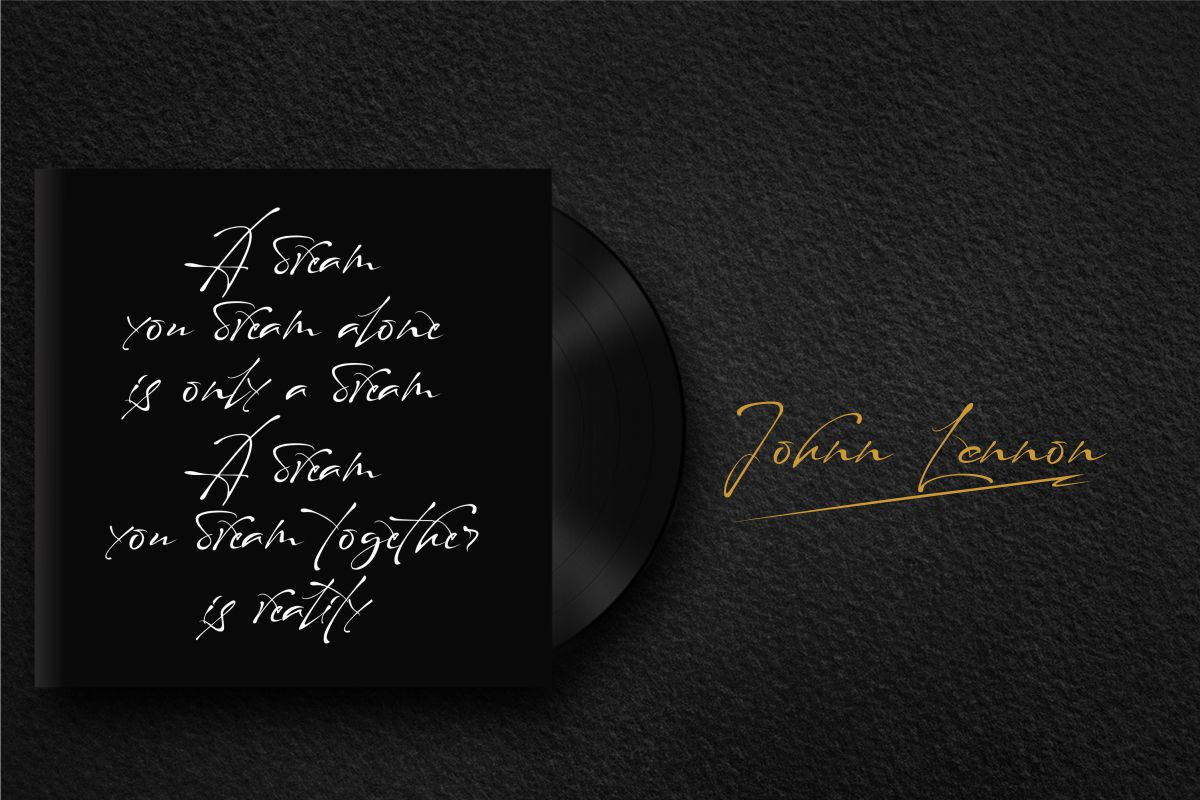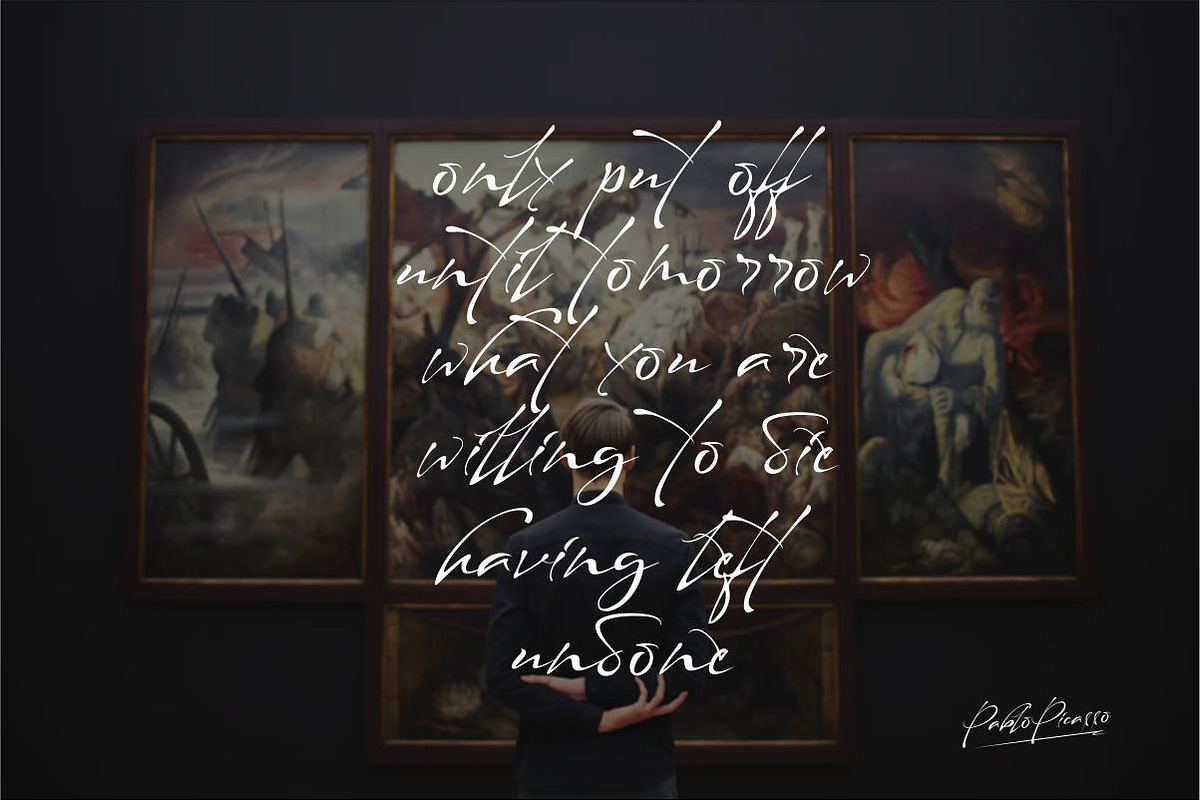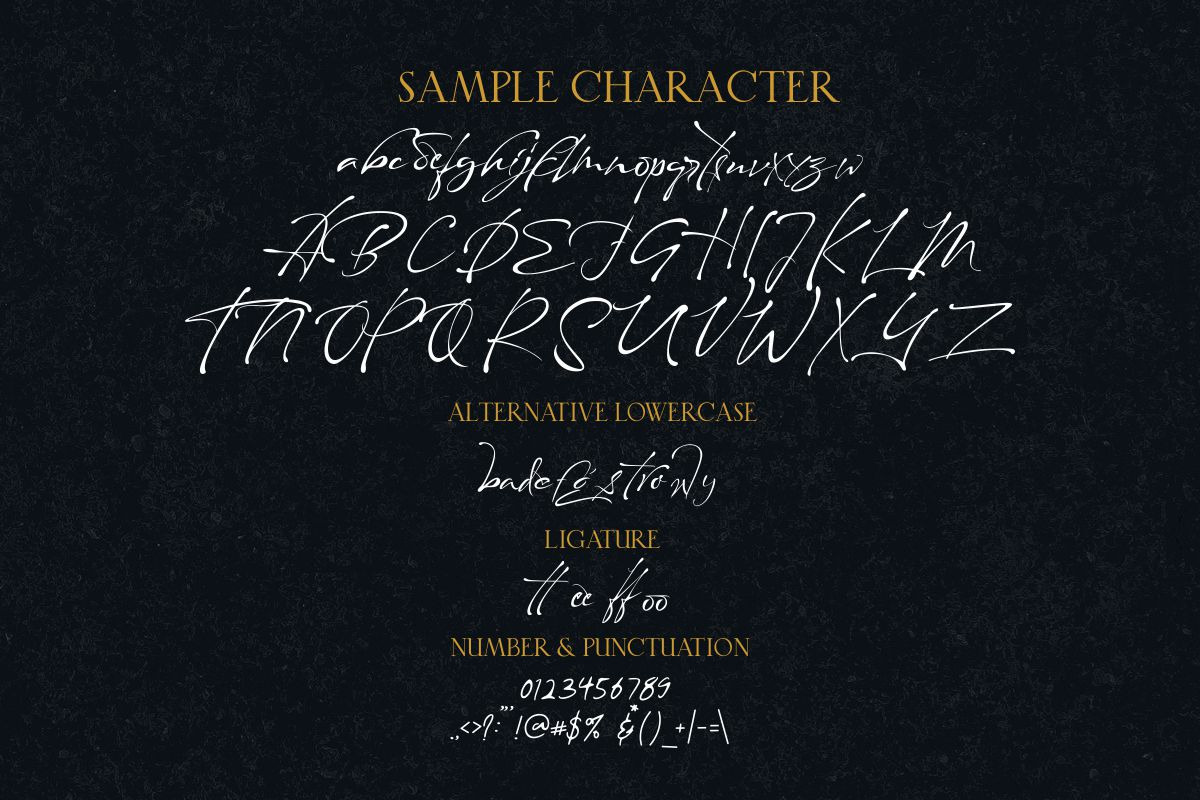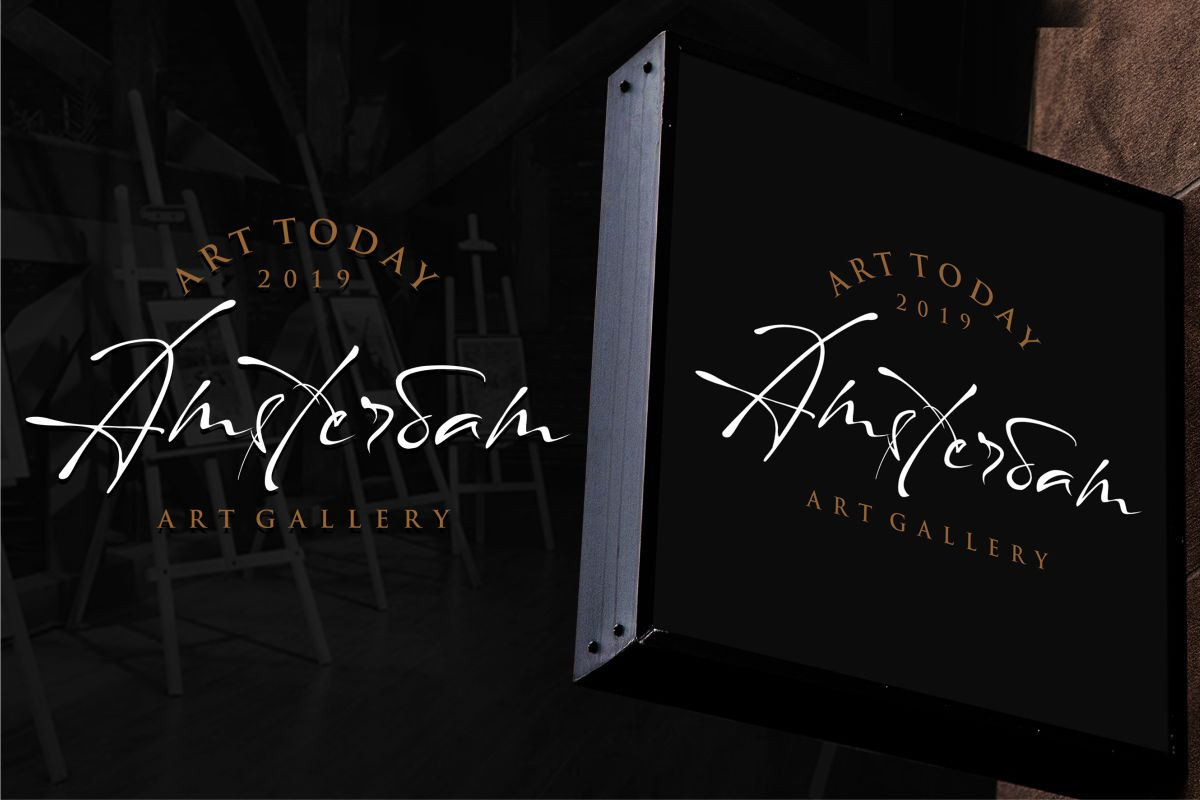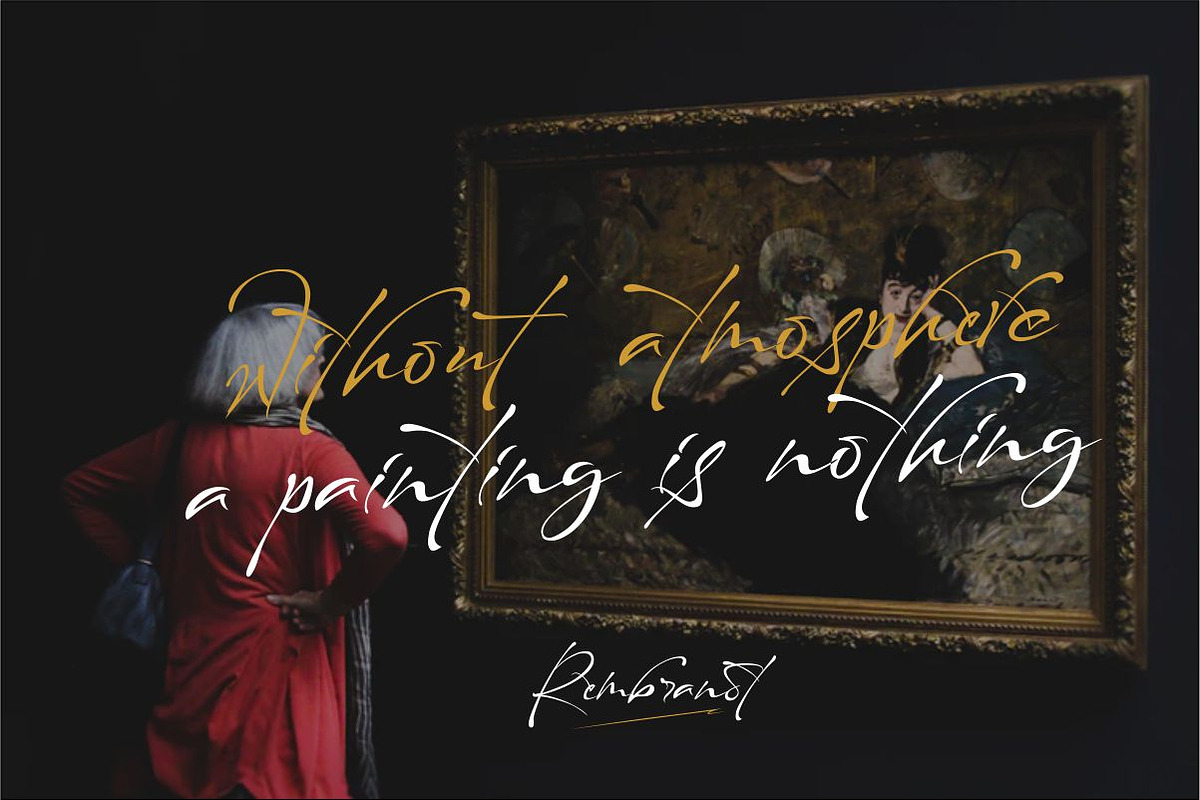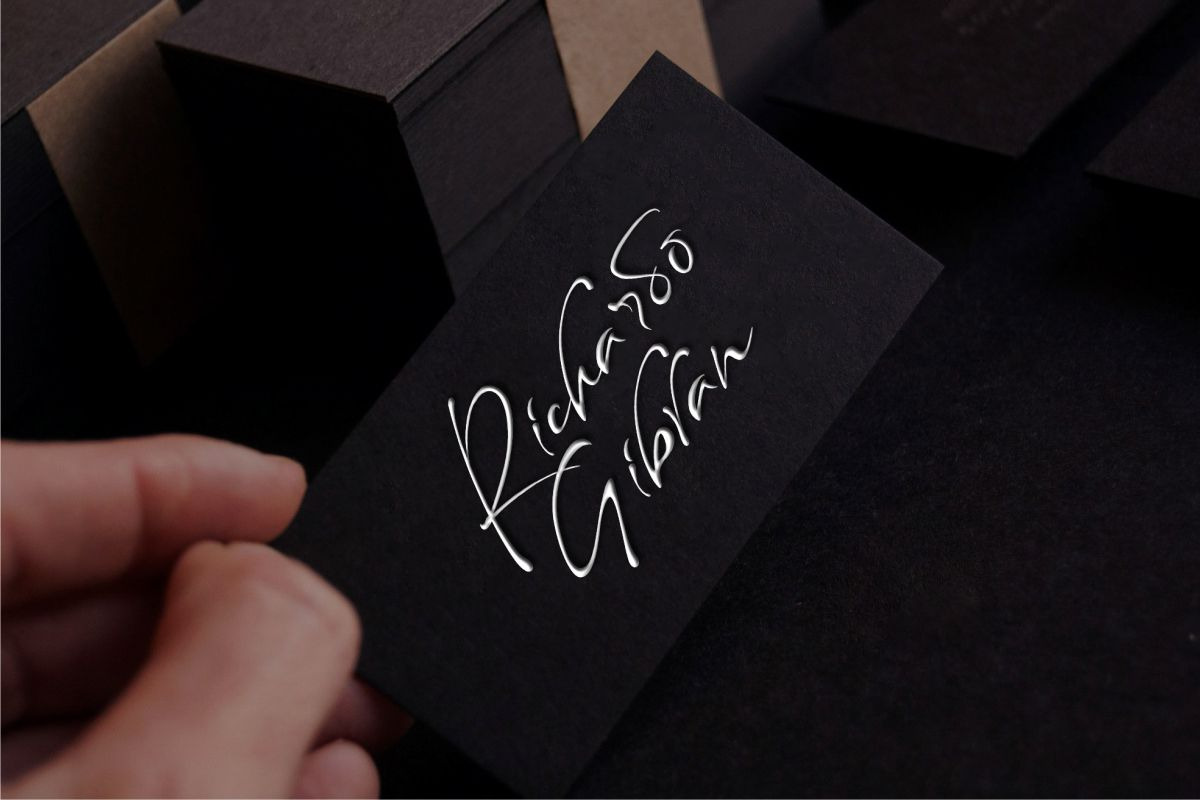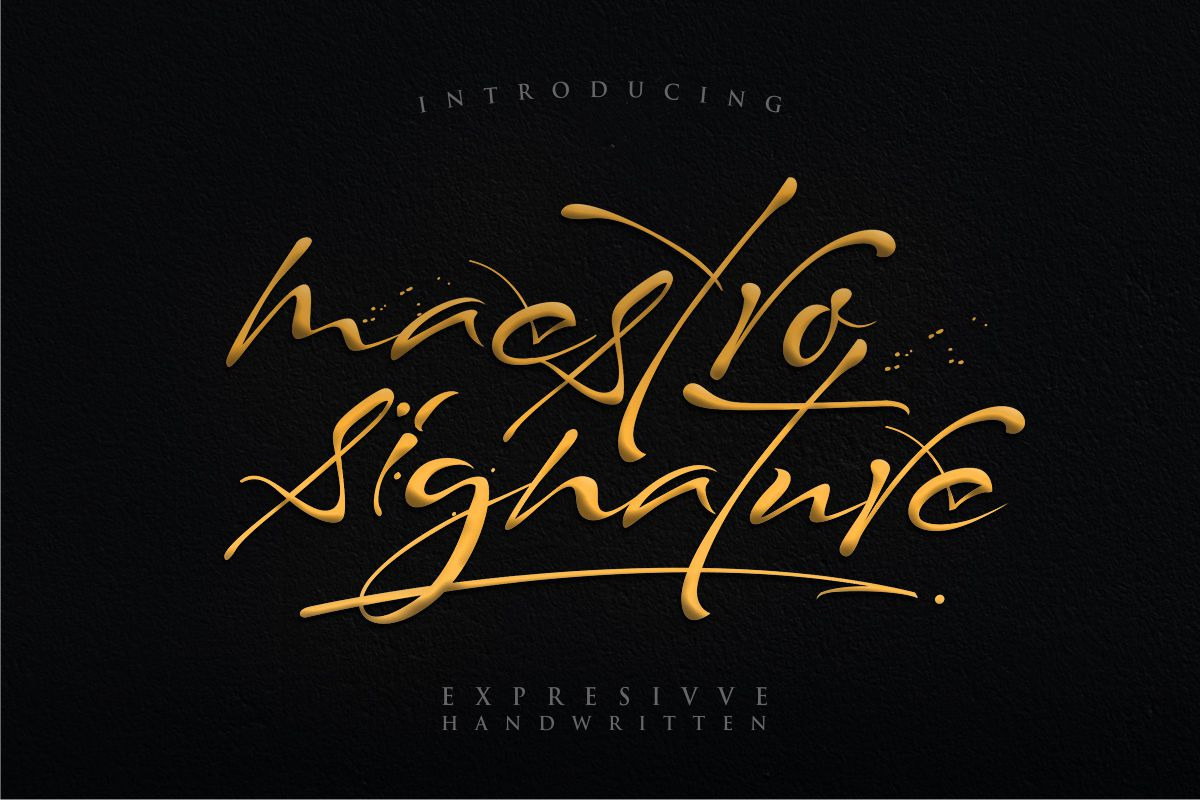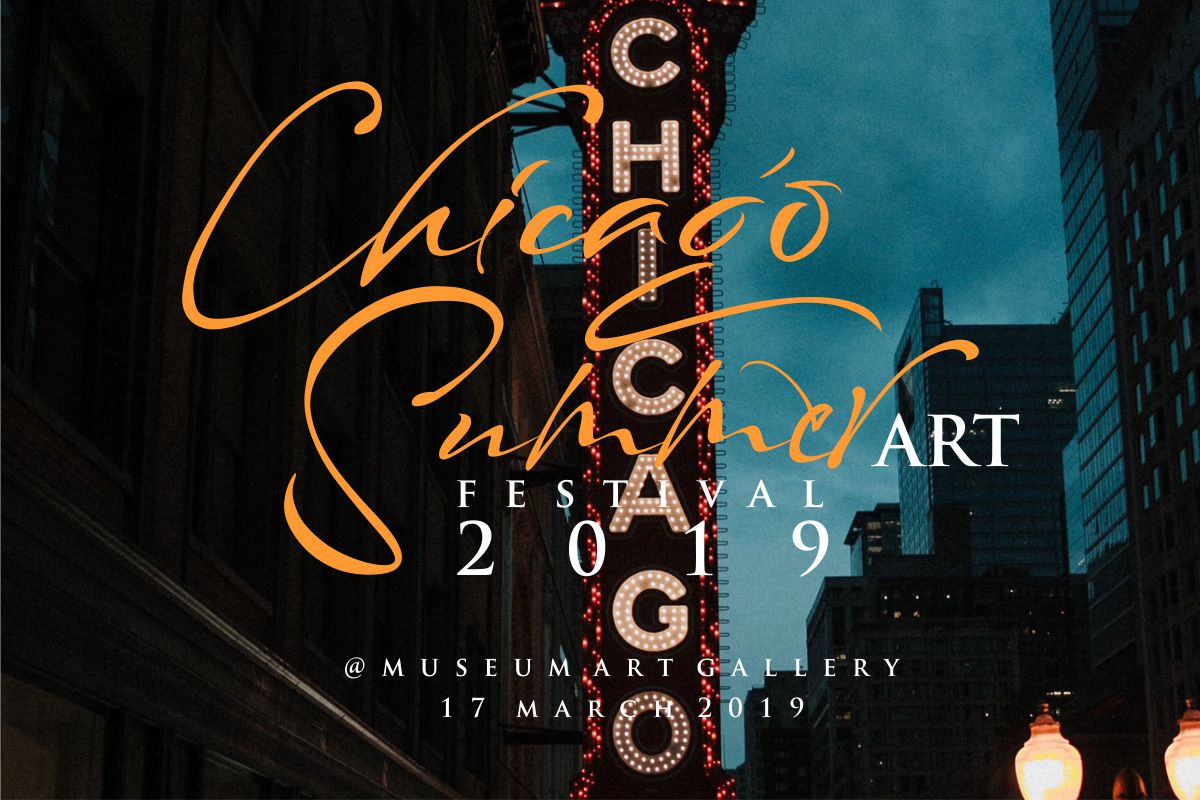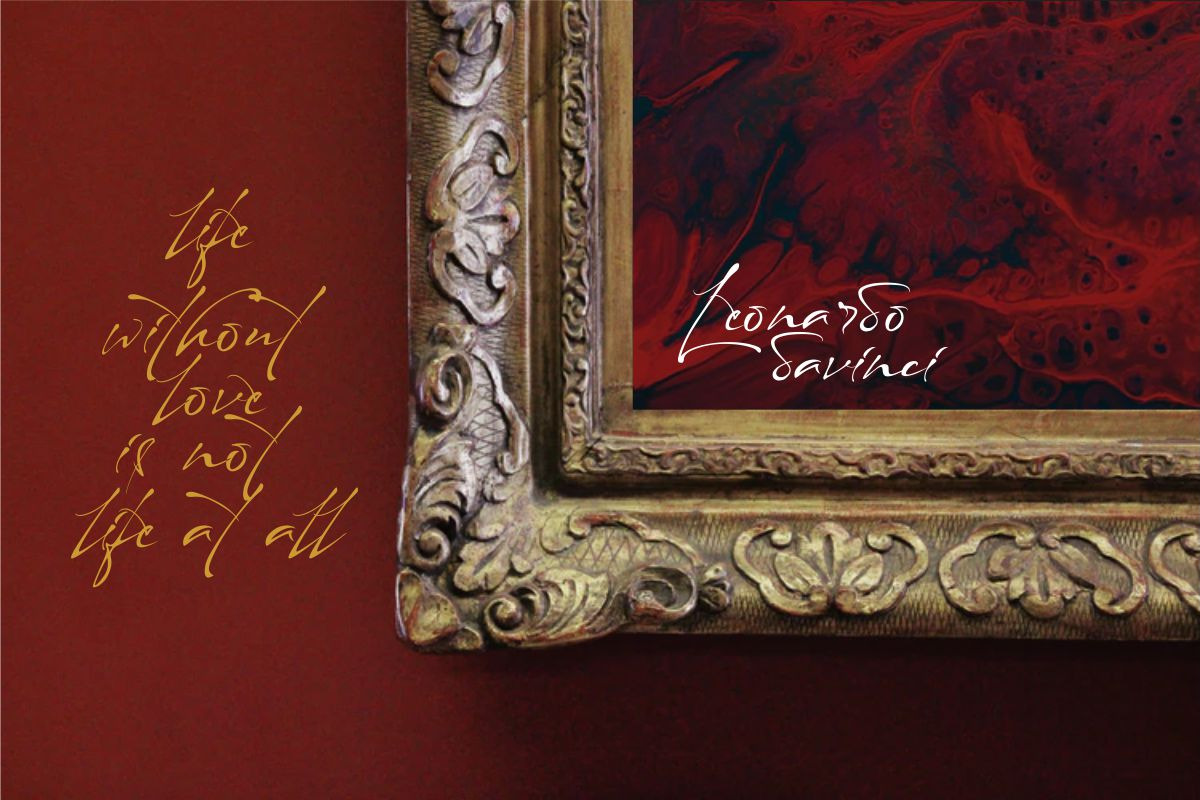
Maestro Signature // Expresivve Font
maesro signature is a expressive calligraphy script signature that are very beautiful,luxurious and high class and very very classy and uniqly font.
This font is perfect for making quote,signature watermark,signature logo, logo branding,book title,logo photography,watermark pgotography, social media, wedding invitations, taglines, headlines, and anything do you want
maestro signature lowercase alternates can see on preview, you can find all glyphs here :